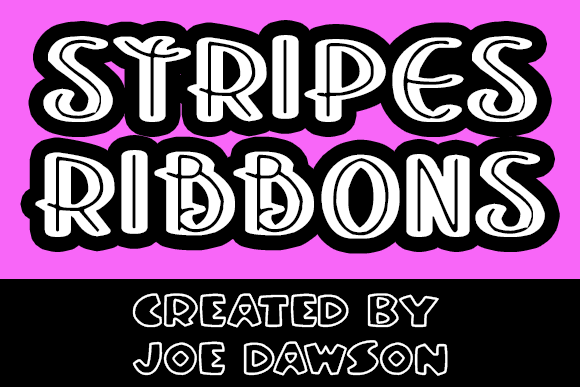
Adorn your creative projects with a touch of vintage charm using our captivating Stripes and Ribbons font. This expertly crafted sans serif font exudes retro-romantic vibes, transporting you to an era of elegance and sophistication.
Step into a world of creativity where playful stripes and delicate ribbons intertwine, adding a touch of whimsy and enchantment to your designs. Let your words dance with grace and style, whether it's for crafting heartfelt messages, designing stunning logos, or creating eye-catching social media posts.
Stripes and Ribbons isn't just a font; it's an invitation to embark on a nostalgic journey where classic aesthetics meet modern sensibilities. Its versatility knows no bounds, seamlessly blending the charm of the past with the vibrancy of the present. Whether you're crafting personal invitations, designing vintage-inspired packaging, or creating captivating digital content, this font will effortlessly elevate your creations.
Joe Dawson, the creative mind behind Stripes and Ribbons, poured his passion and artistry into every curve and stroke, ensuring that each letter carries a unique story. Its sans serif design exudes a clean and contemporary feel, while the subtle retro influences add a touch of timeless charm.